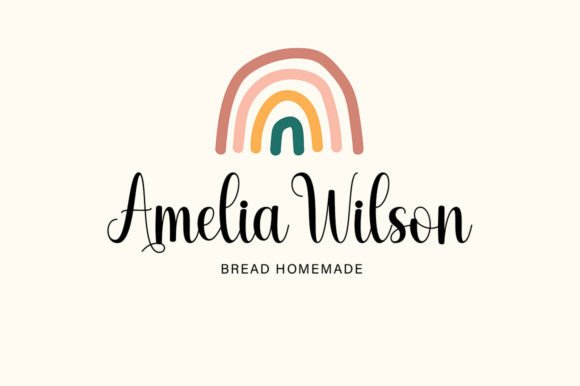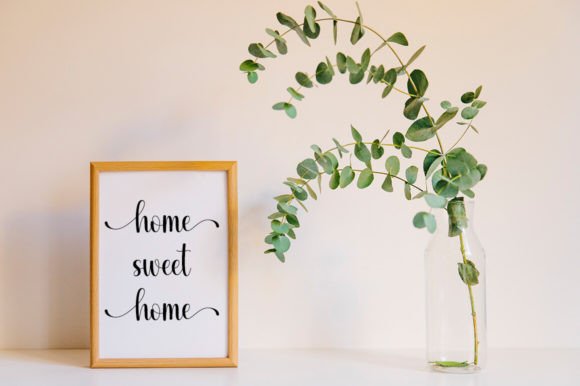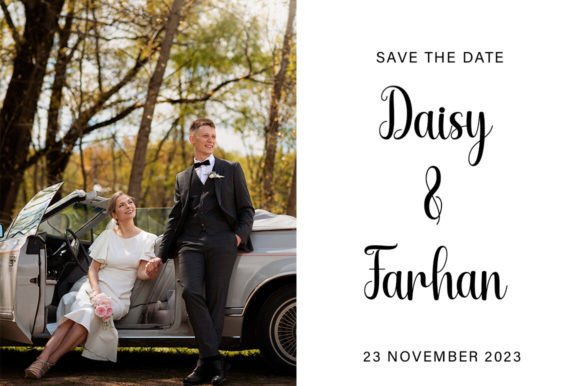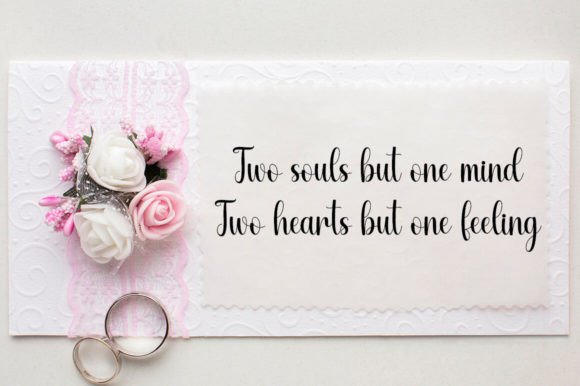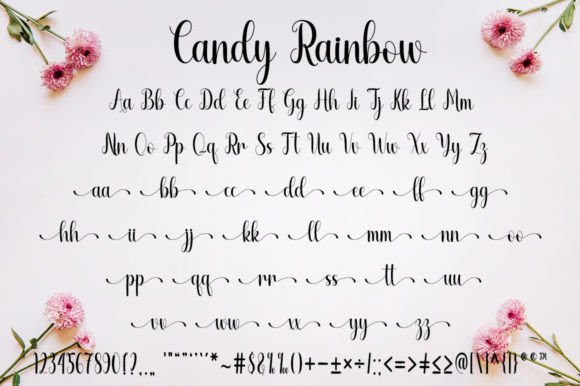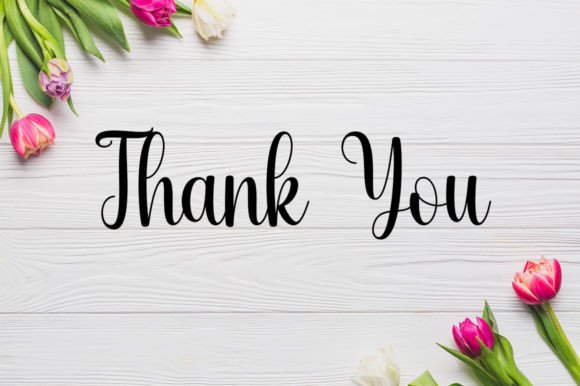
Candy Rainbow Font: The Sweetest Addition to Your Design Projects
Are you looking for a font that adds a touch of sweetness and whimsy to your design projects? Look no further than the Candy Rainbow Font! This beautiful handwritten font is perfect for a variety of applications, from wall displays and wedding invitations to social media posts and product packaging.
A Font that’s as Colorful as it is Versatile
The Candy Rainbow Font is a stunning addition to any design project. Its colorful and playful vibe makes it perfect for designs that require a touch of fun and personality. Whether you’re a designer, crafter, or DIY enthusiast, this font is sure to inspire your creativity.
The Candy Rainbow Font is a versatile font that can be used for a wide range of applications, including:
- Wall displays: Add a pop of color and personality to your wall displays with this beautiful font.
- Wedding invitations: Make your wedding invitations truly special with the Candy Rainbow Font.
- Social media posts: Add a touch of fun and whimsy to your social media posts with this colorful font.
- Logos: Create a unique and memorable logo with the Candy Rainbow Font.
- Advertisements: Grab attention with this eye-catching font.
- Product packaging: Add a touch of personality to your product packaging with this beautiful font.
- Product designs: Create stunning product designs with the Candy Rainbow Font.
- Labels: Add a pop of color and personality to your labels with this font.
- Photography: Use the Candy Rainbow Font as a watermark or overlay for your photos.
- Invitations: Create beautiful and unique invitations with this font.
- Stationery: Add a touch of whimsy and personality to your stationery with the Candy Rainbow Font.
The Candy Rainbow Font is PUA encoded, which means you can access all of the amazing glyphs and ligatures with ease. This makes it easy to get the most out of this beautiful font and add a touch of personality to your designs.
Why Choose the Candy Rainbow Font?
There are many reasons why the Candy Rainbow Font is a great choice for designers and crafters. Here are just a few:
- Unique and eye-catching: This font is sure to grab attention and add a touch of personality to your designs.
- Versatile: The Candy Rainbow Font can be used for a wide range of applications.
- Easy to use: The font is PUA encoded, making it easy to access all of the glyphs and ligatures.
- Beautiful and colorful: This font is perfect for designs that require a touch of fun and whimsy.
Tips for Using the Candy Rainbow Font
Here are a few tips for getting the most out of the Candy Rainbow Font:
- Experiment with different colors: The Candy Rainbow Font is perfect for designs that feature bright and bold colors.
- Pair with other fonts: Try pairing the Candy Rainbow Font with other fonts to create a unique and eye-catching design.
- Use for headings and titles: The Candy Rainbow Font is perfect for headings and titles, adding a touch of personality and whimsy to your designs.
The Candy Rainbow Font is a beautiful and versatile font that’s perfect for designers and crafters. Its colorful and playful vibe makes it perfect for a wide range of applications, from wall displays and wedding invitations to social media posts and product packaging. With its PUA encoding, you can easily access all of the amazing glyphs and ligatures, making it easy to get the most out of this stunning font. So why wait? Add the Candy Rainbow Font to your design toolkit today and start creating stunning designs that are sure to grab attention!